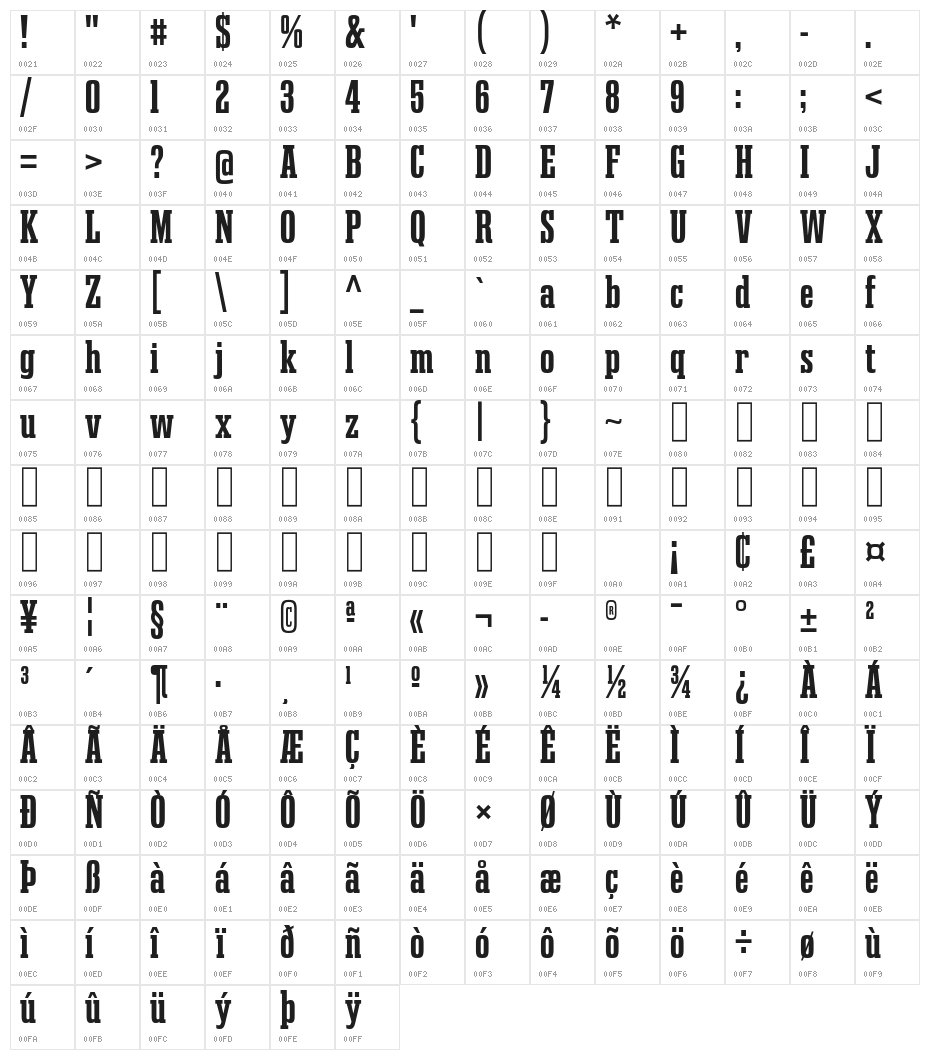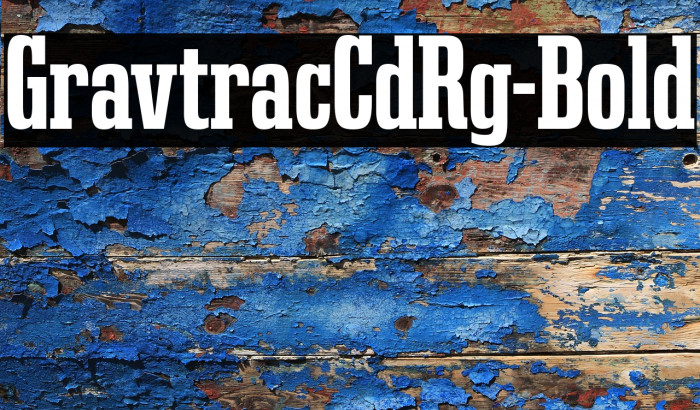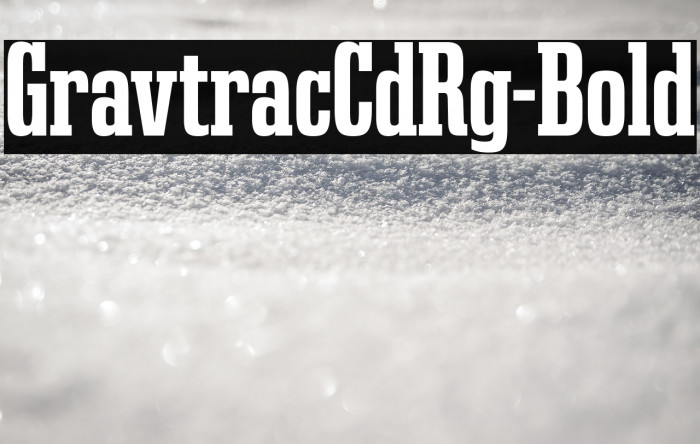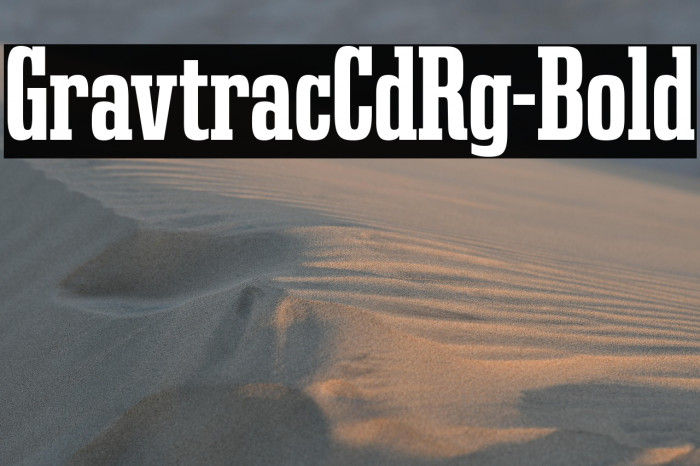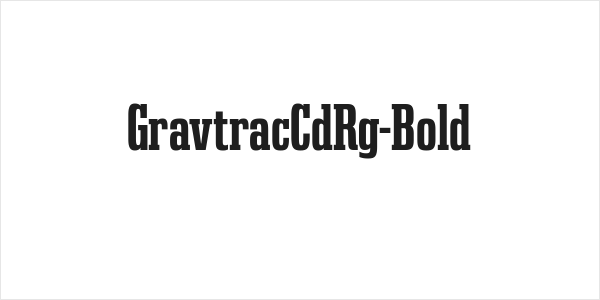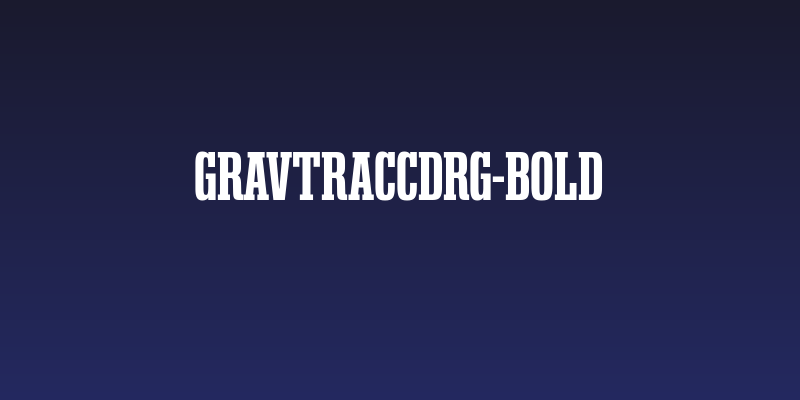
GravtracCdRg-Bold Font
GravtracCdRg-Bold Description
This font features a bold and commanding presence with its thick, slab serif design. The uppercase letters are particularly striking, with strong vertical lines and slightly condensed proportions that give it a robust and impactful look. The lowercase letters maintain the same boldness, ensuring consistency across text. Numbers and special characters are equally bold, making them stand out prominently. The overall style is modern yet classic, suitable for making a strong visual statement.
| Proposed Projects | Ideal for headlines, posters, branding, and any project requiring a bold statement. |